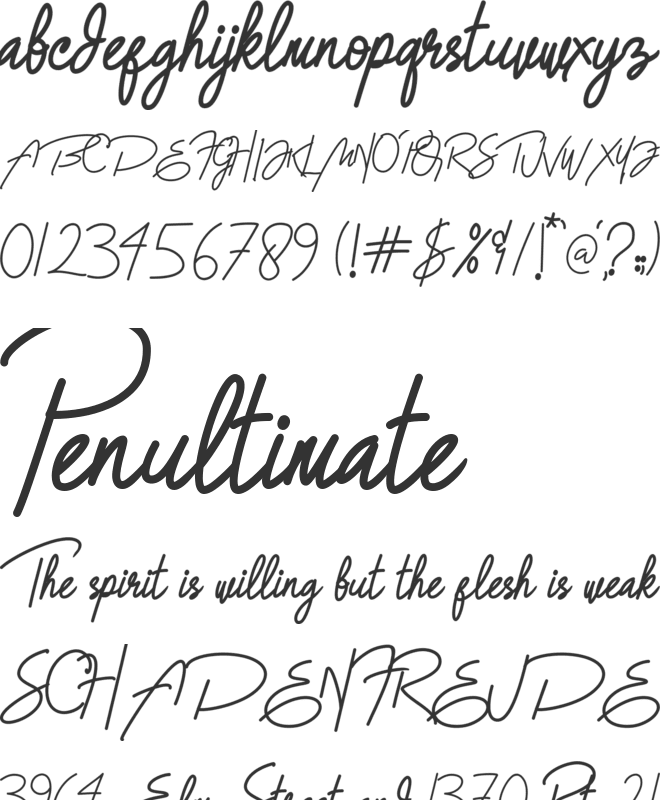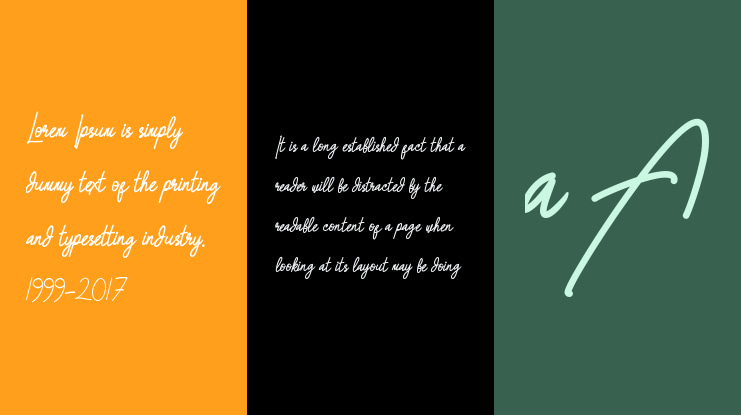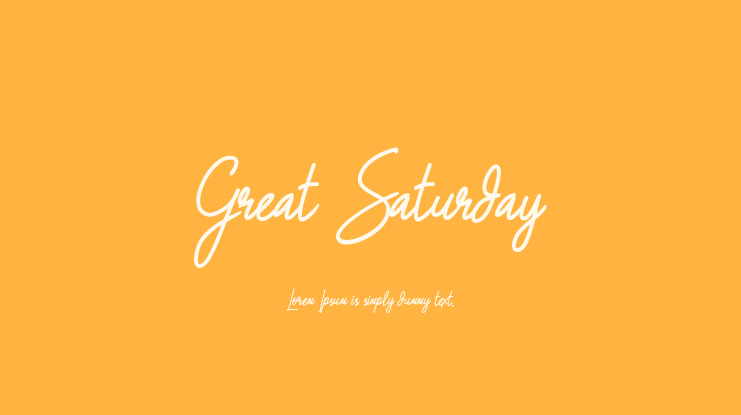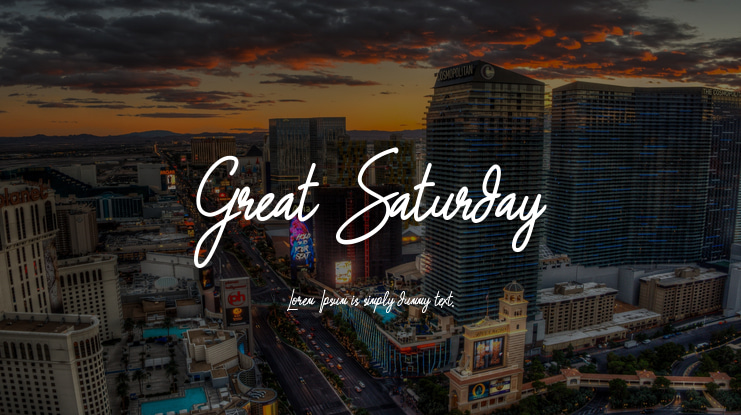
Great Saturday Font
Great Saturday Script is modern script that perfect for photography, signature, branding, poster, etc. It is so beautiful and classy, simple but strong. Holland is one of most wanted font 2017-2018.